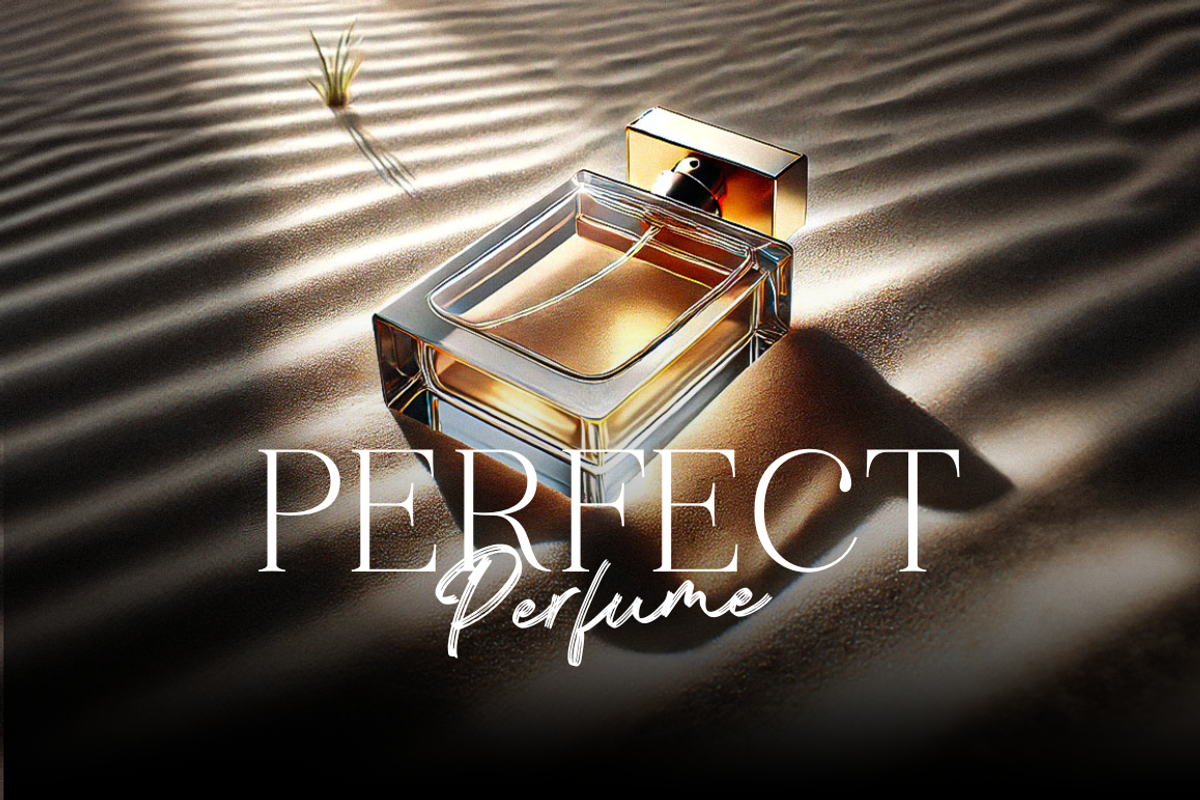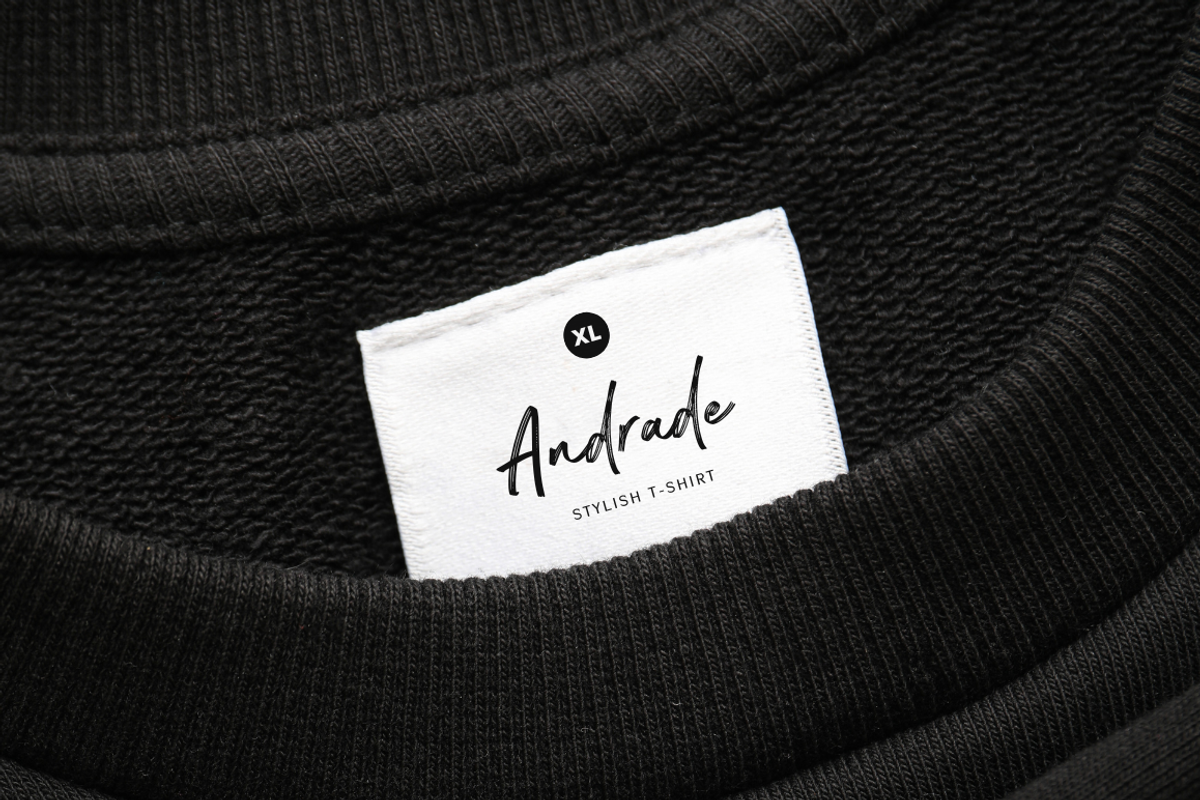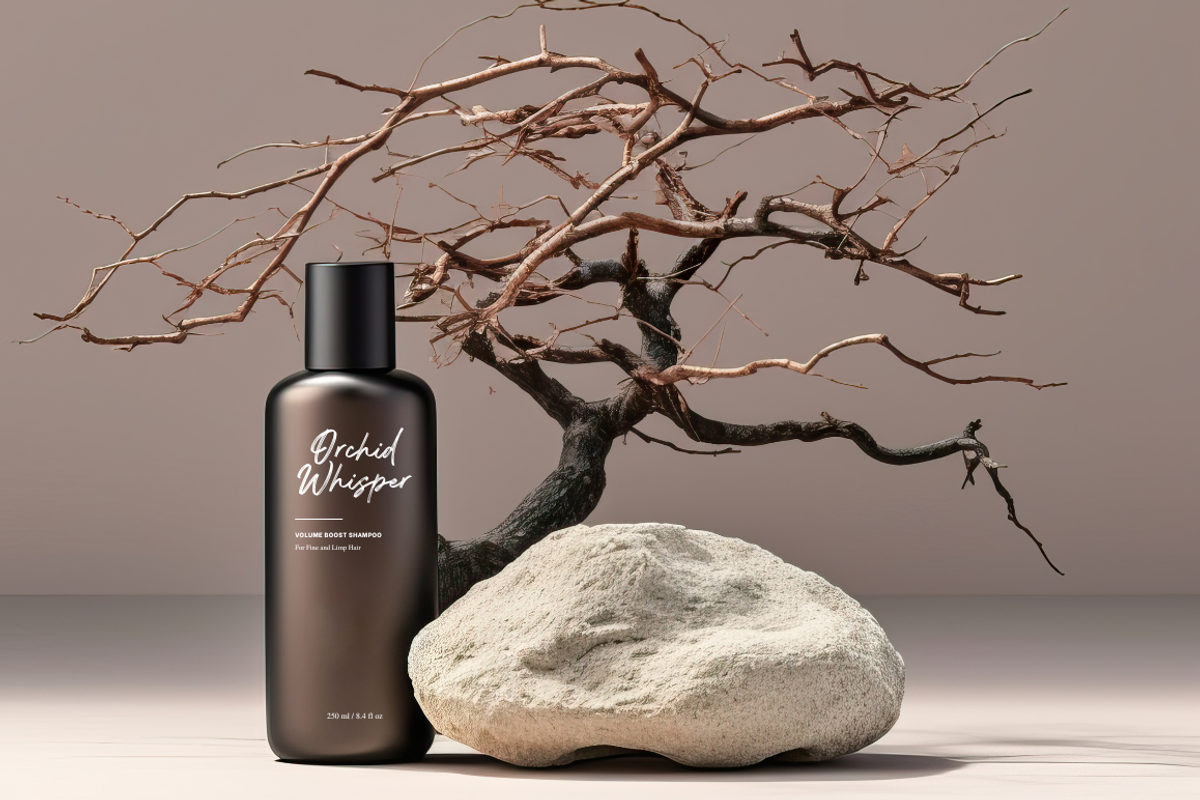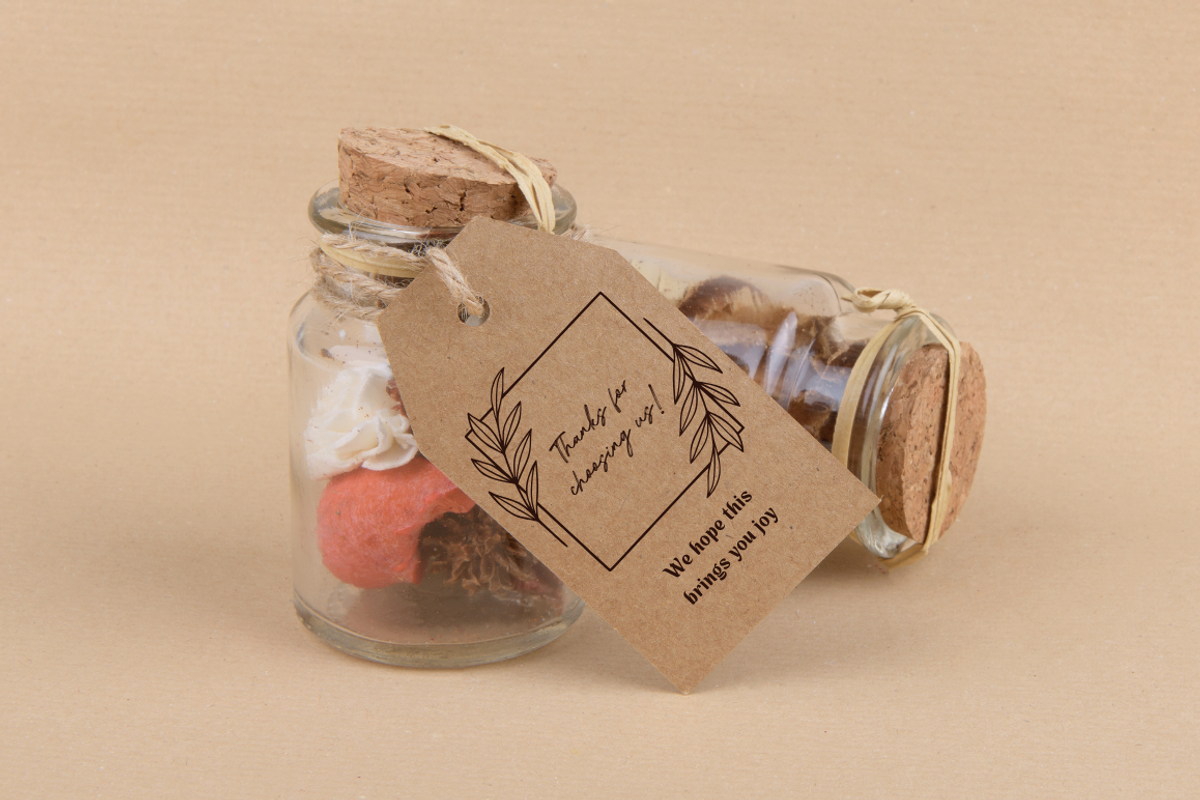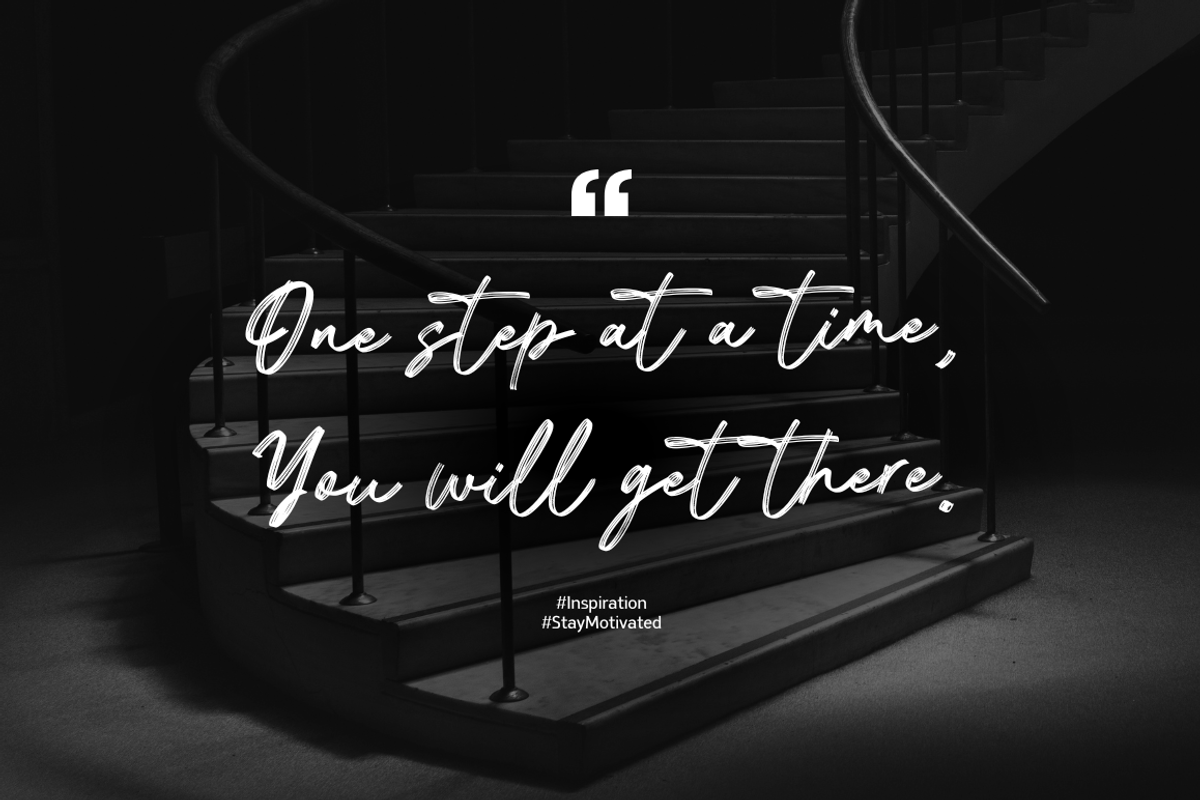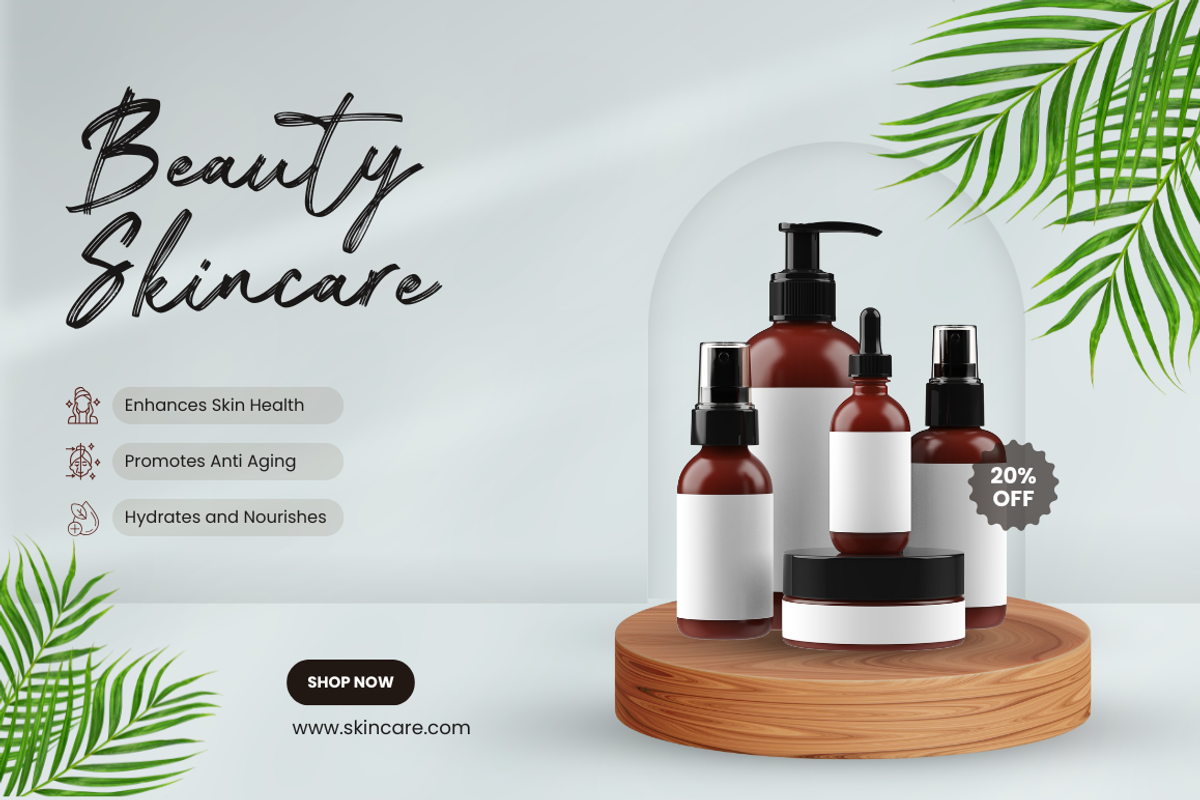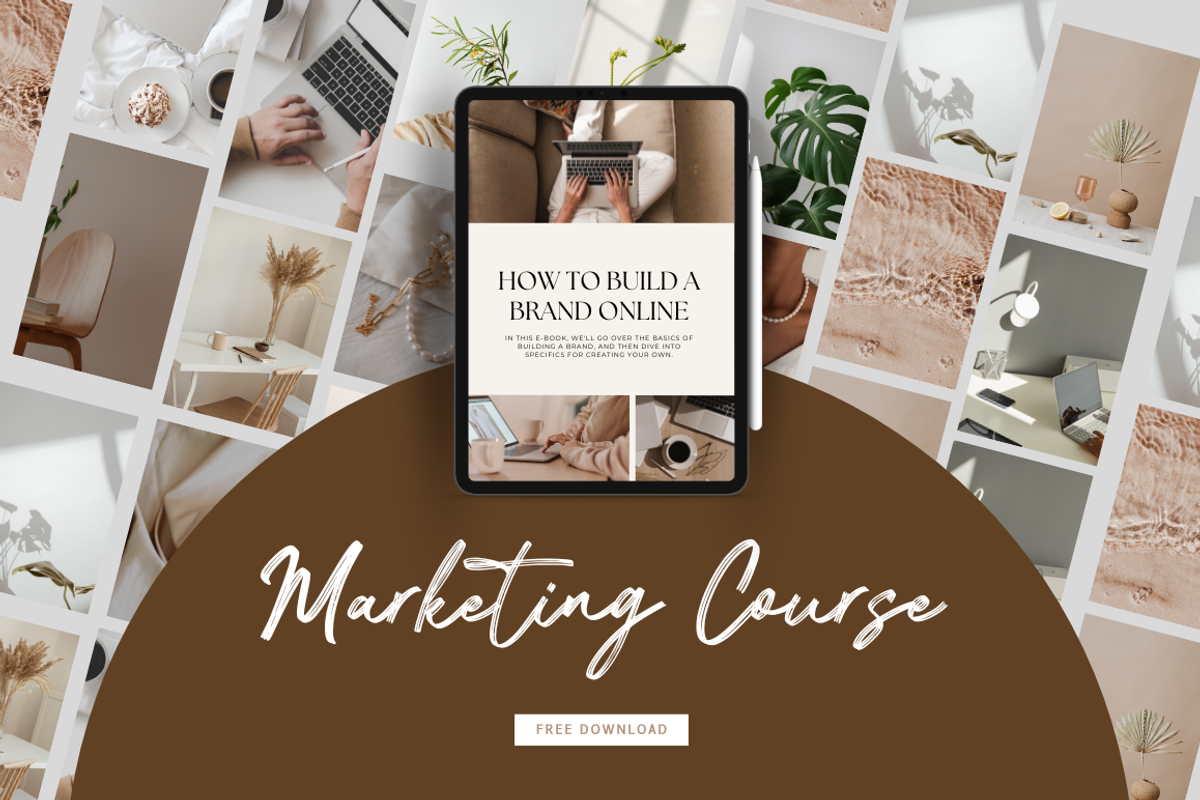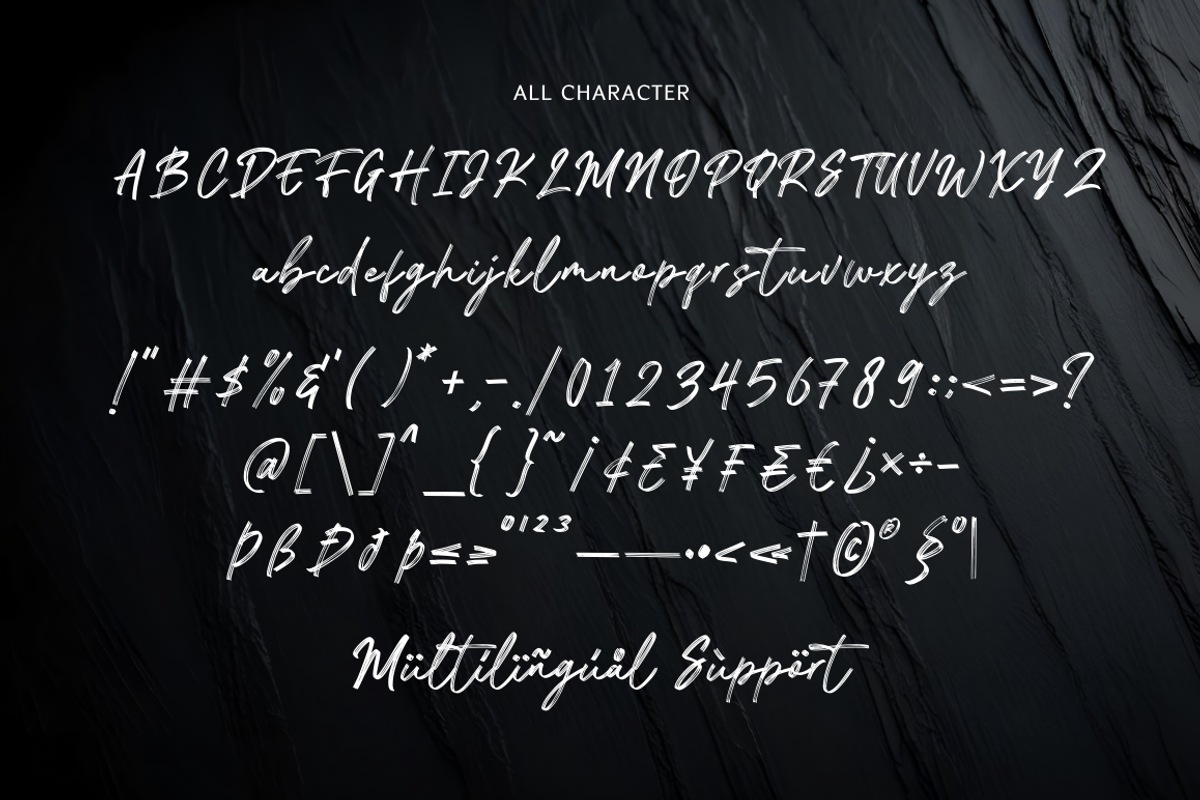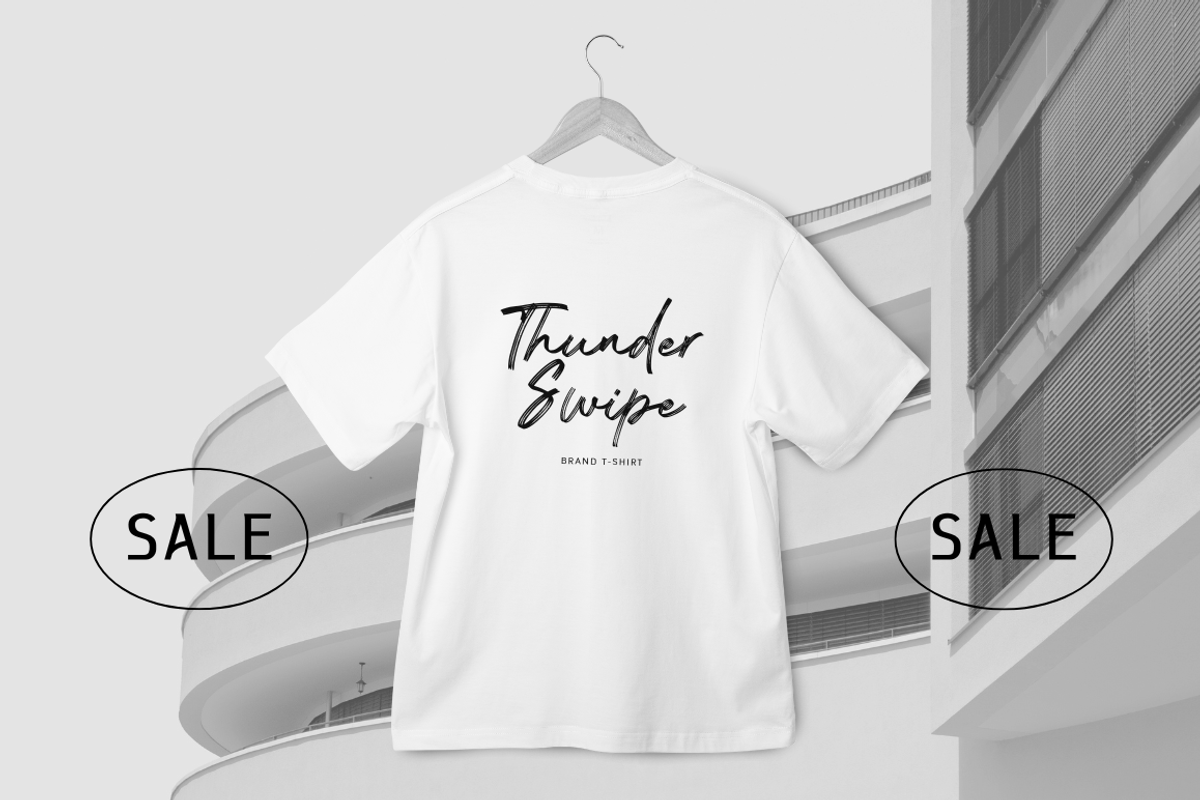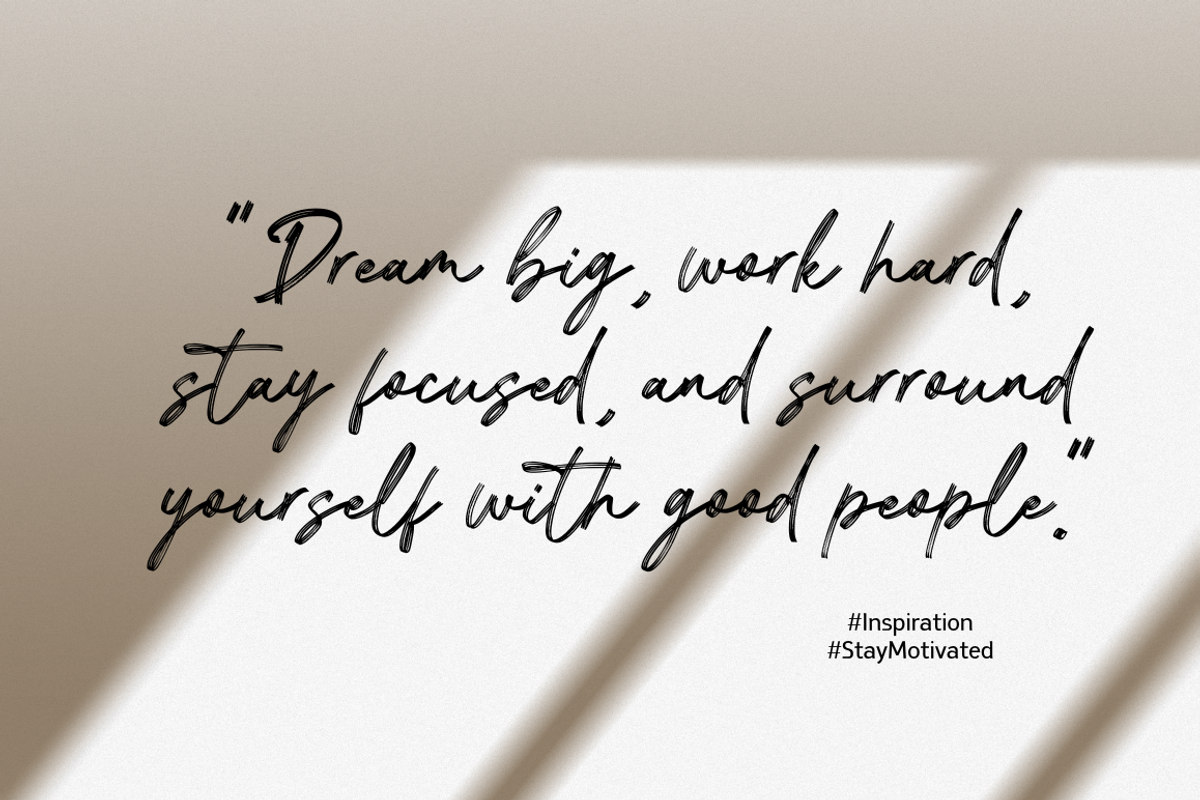
Penstand - Brush Font
Penstand is a bold and expressive brush font that brings energy and personality to your designs. With its natural strokes and handcrafted feel, this font is perfect for posters, branding, packaging, quotes, and any project that needs a dynamic and artistic touch. Penstand captures the beauty of hand-drawn brush lettering, making your designs stand out with authenticity and style.
- Numerals & punctuation